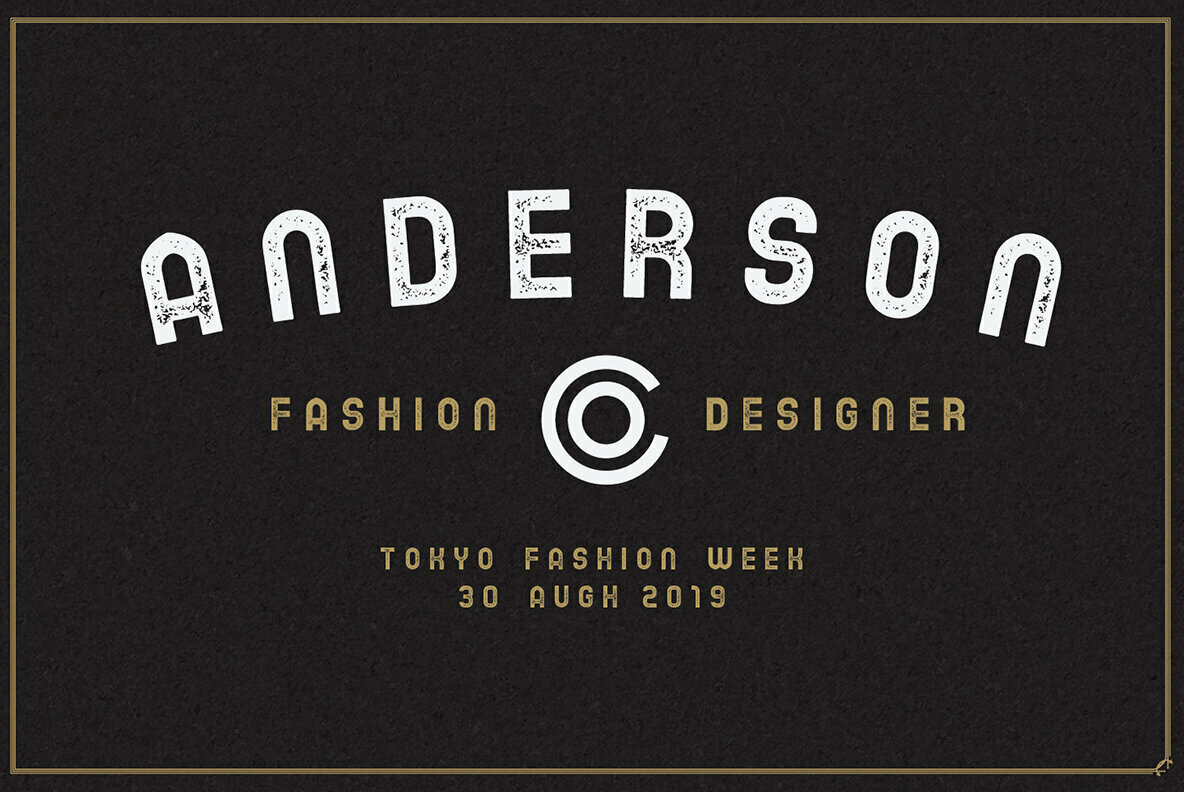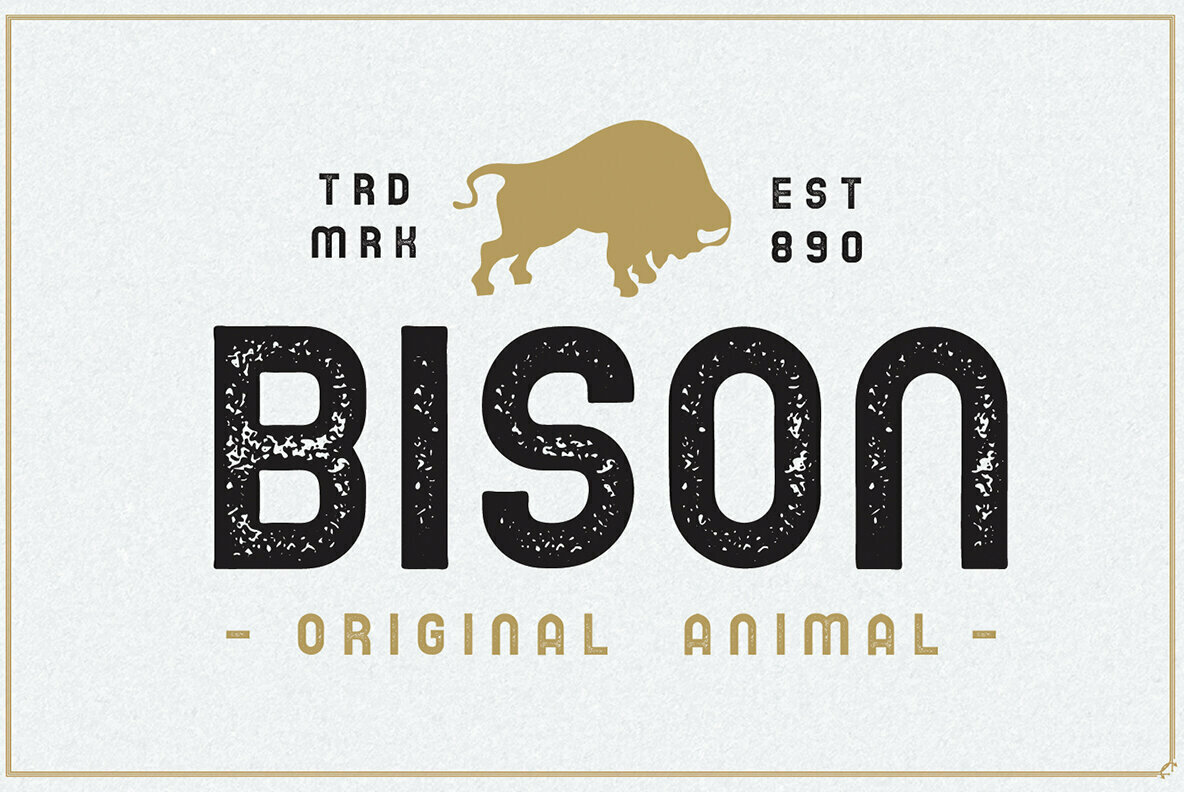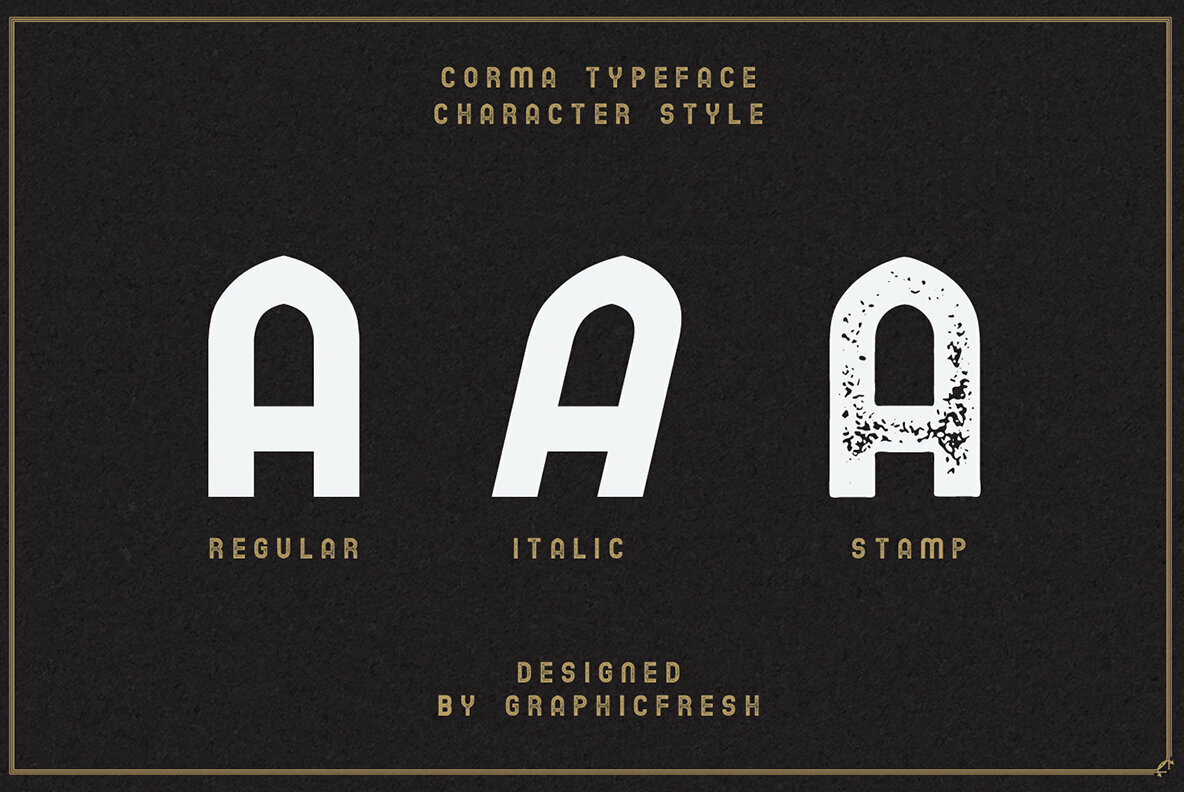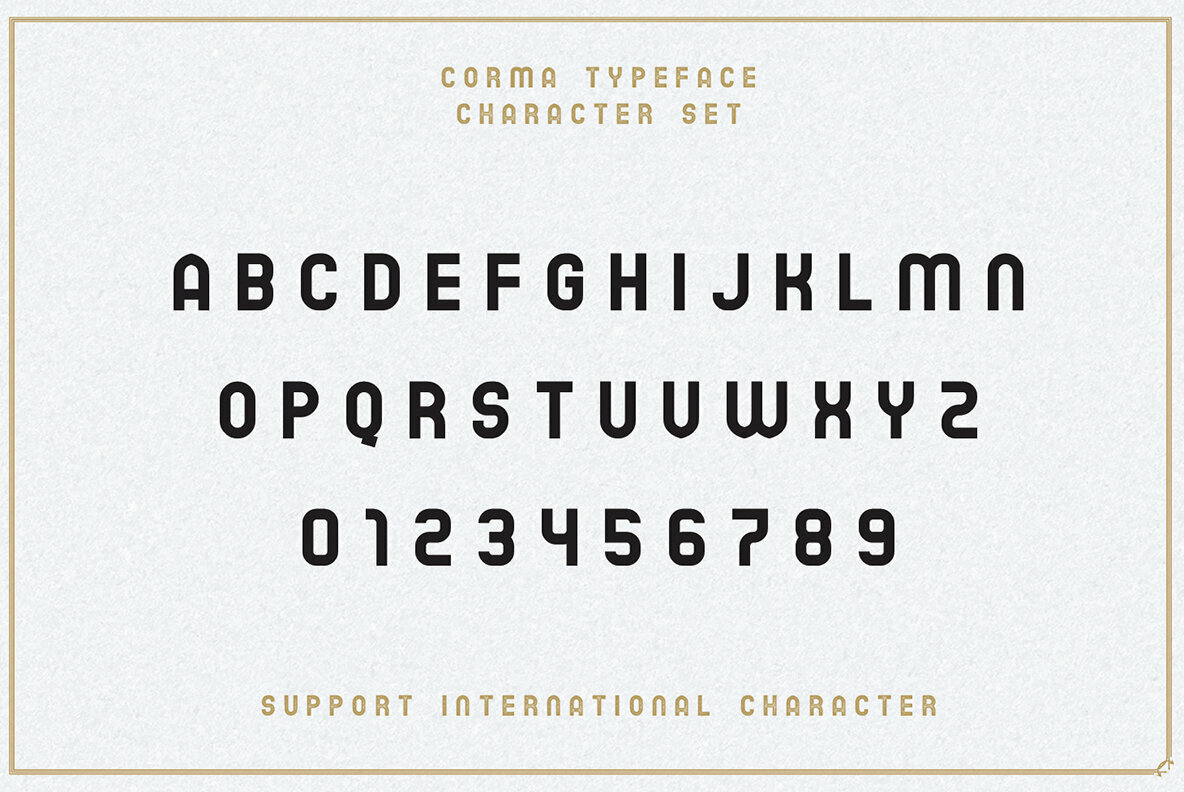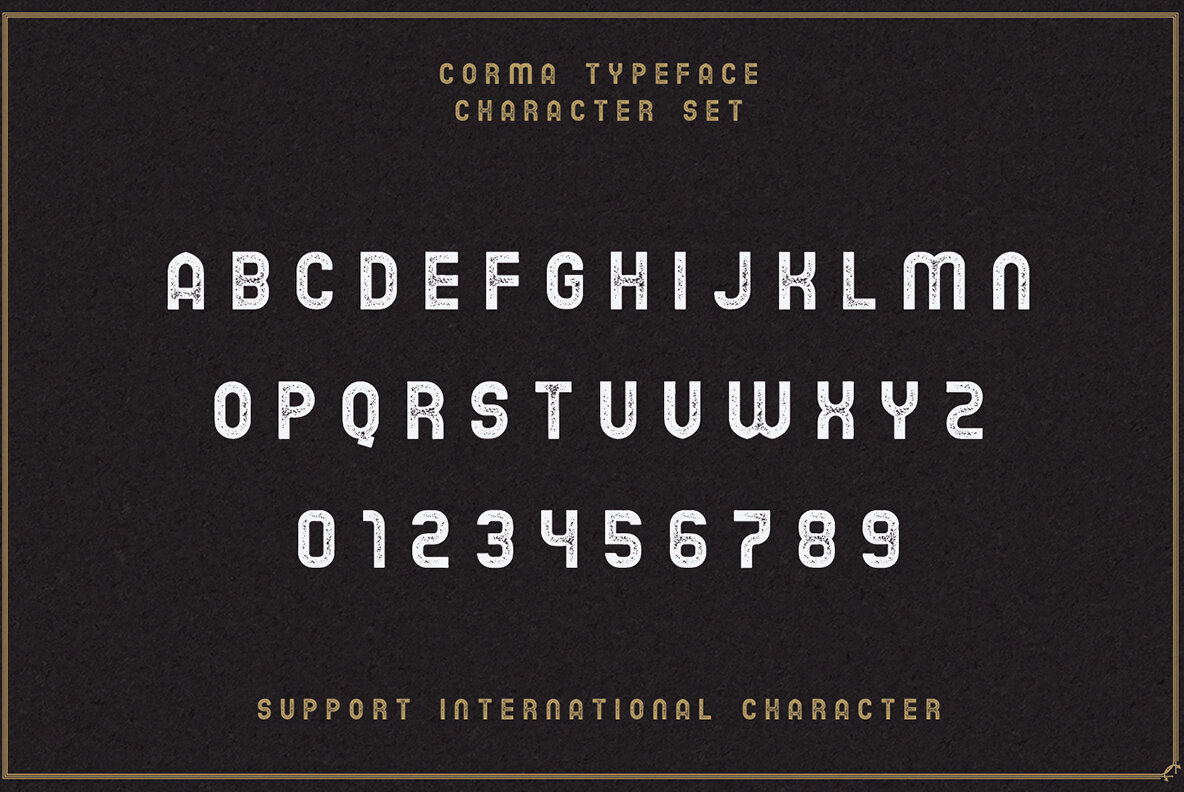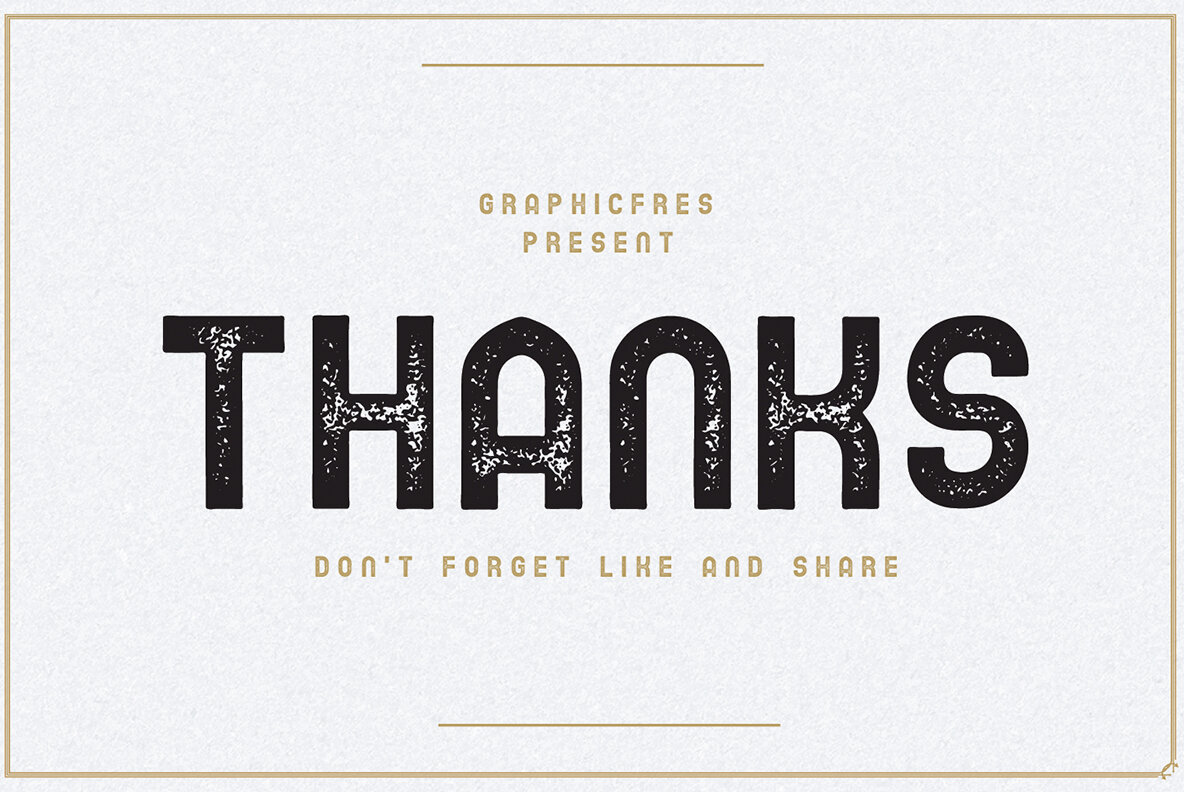
Corma Font
Corma Regular
Corma Italic
Corma Stamp
Corma Stamp Italic
Corma is a captivating vintage display font family that combines detailed artistry with nostalgic charm. Offered in both Regular and Textured versions, along with their Italic counterparts, Corma is versatile and perfectly suited for various design projects. Whether crafting logos, designing magazine layouts, creating invitations, or working on large-scale artwork, this typeface offers a robust solution with its unique character.Corma: A Vintage Display Typeface